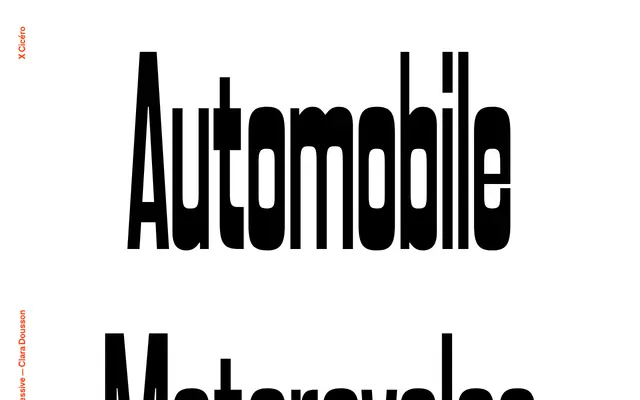
Excessive
A display typeface with six idiosyncratically named weights drawn from an automotive vocabulary, suggesting high-energy use in headlines and poster work.
Six weights named after automotive references — from Automobile through to Free Gasoline — give this display face a distinctly irreverent character. The naming convention implies a progression from lighter to heavier cuts, framed around speed and movement. Suited to editorial headlines, posters and identity work where a bold, unconventional voice is needed.
The automotive and speed-related naming of weights suggests a display typeface with expressive, high-energy characteristics suited to headlines and posters rather than text setting.